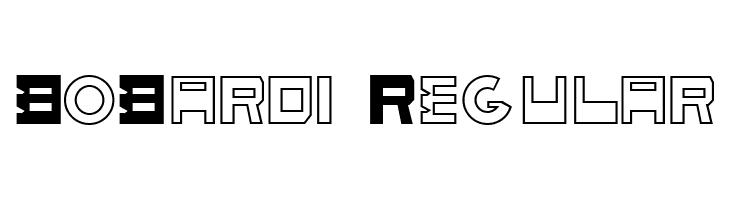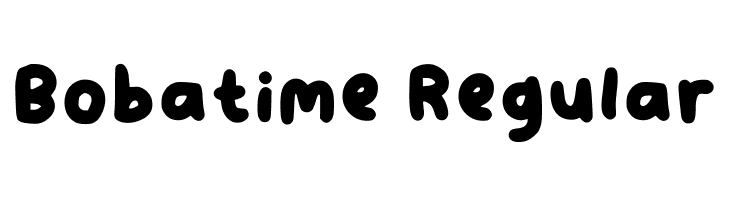
• BoBardi Regular schriftart
A bold, geometric font with angular shapes and a modern aesthetic.
• Bobatime Regular schriftart
A playful, rounded font with bold, smooth curves and a friendly appearance.
• Bobba schriftart
A bold, playful font with rounded, bubbly characters perfect for fun and whimsical designs.
• Bobba Tea schriftart
A playful, bold font with thick, rounded strokes and a hand-drawn feel.
• Bobba Tea schriftart
A bold, playful font with rounded edges and a hand-drawn style.
• Bobbers Personal Use Regular schriftart
A bold, cursive script with high contrast and elegant flourishes.
• Bobbey schriftart
A fluid and elegant script font with connected strokes and a natural handwriting style.
• Bobbey Italic schriftart
A flowing, italic script font with elegant, interconnected characters.
• Bobbi Jeffina schriftart
A sophisticated script font with flowing, cursive strokes and elegant flourishes.
• Bobbi Jeffina Italic schriftart
An elegant, flowing script font with a sophisticated, cursive style.